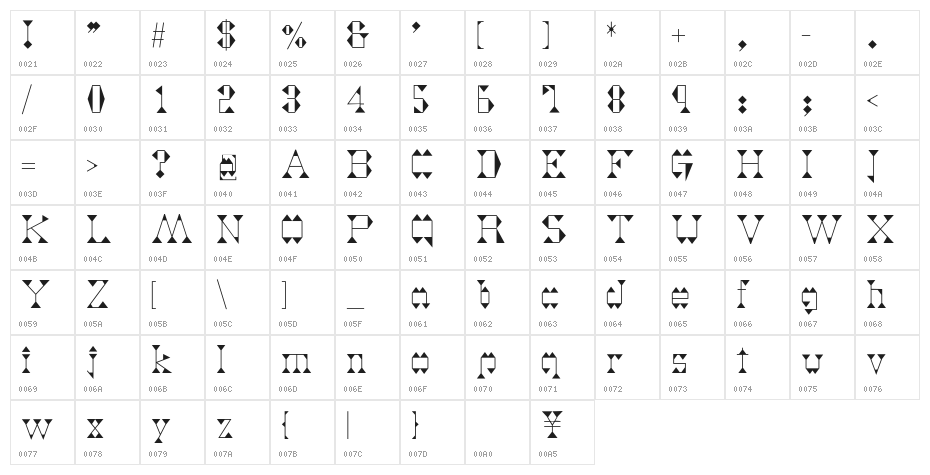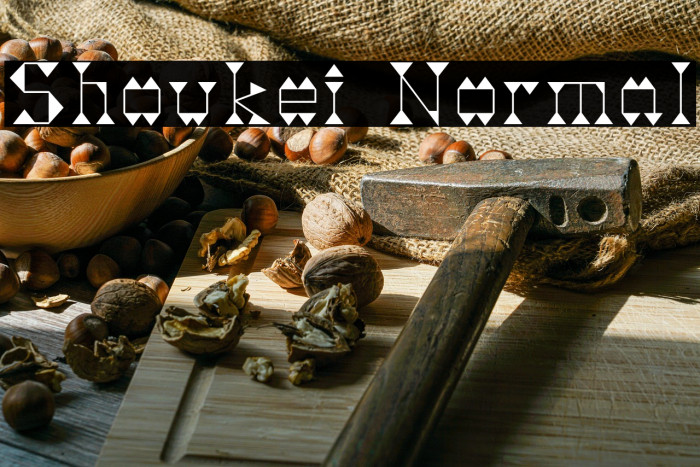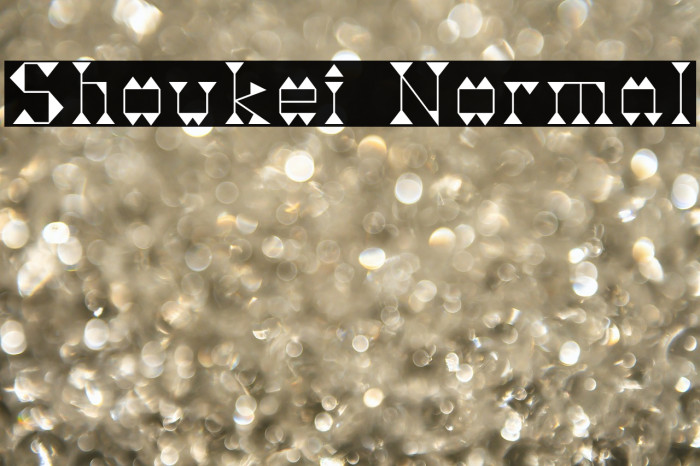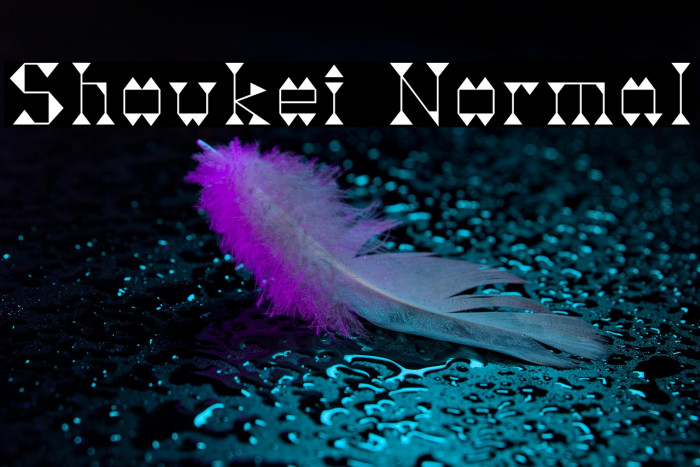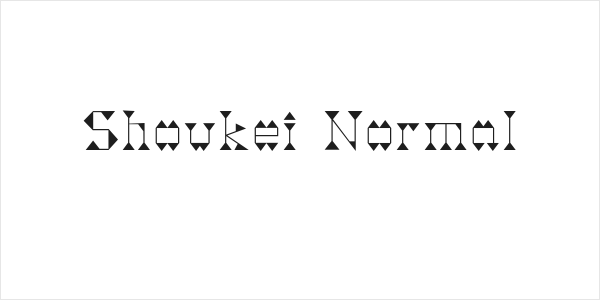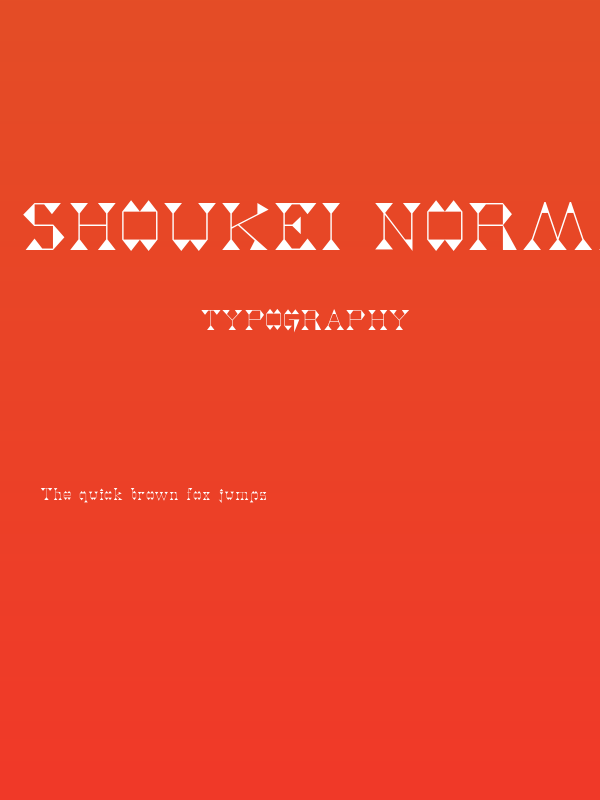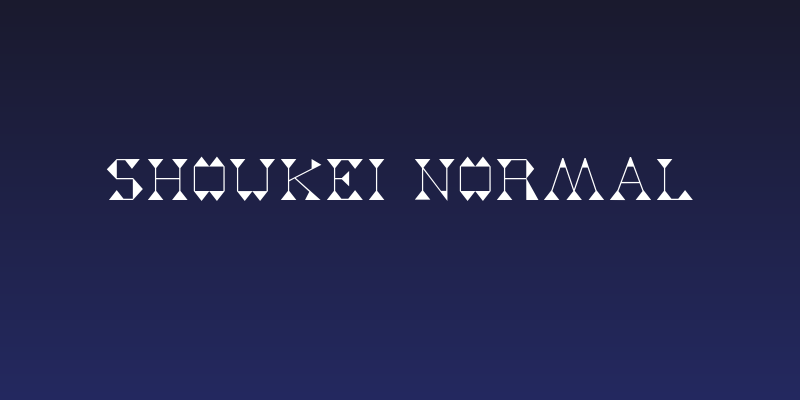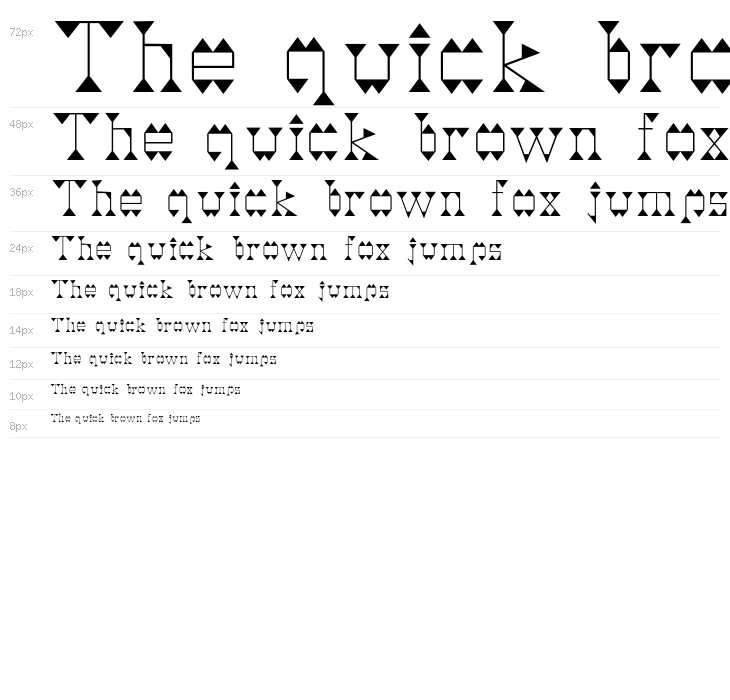
Shoukei Normal Font
Shoukei Normal Description
This font features a unique geometric design with sharp angles and distinct triangular elements. The characters are bold and striking, with a futuristic and avant-garde appearance. The uppercase and lowercase letters maintain a consistent style, characterized by their angular cuts and symmetrical shapes. Numbers and special characters follow the same design principles, making the font cohesive and visually impactful. The overall look is modern and artistic, suitable for creative and bold design projects.